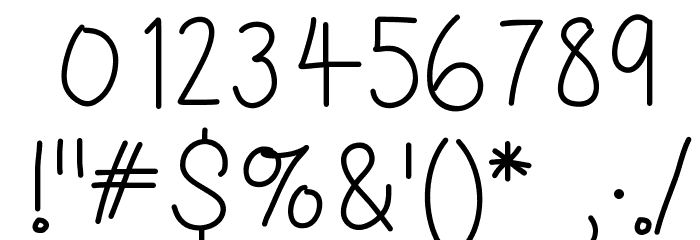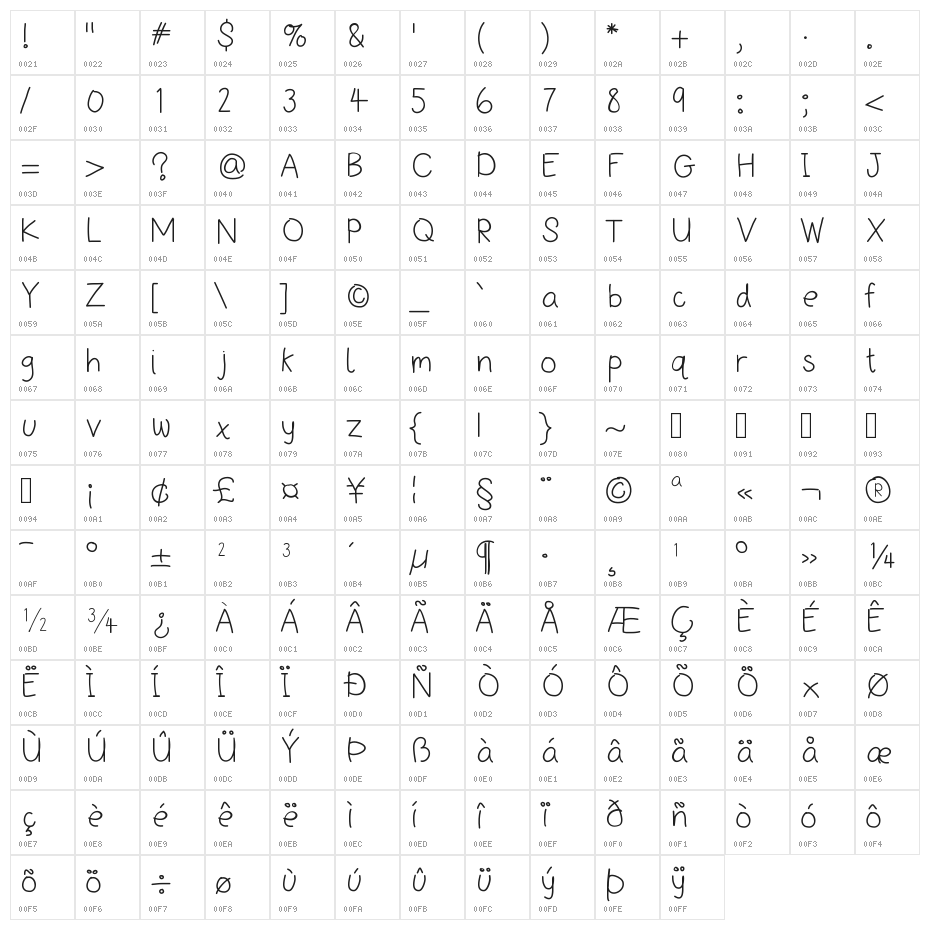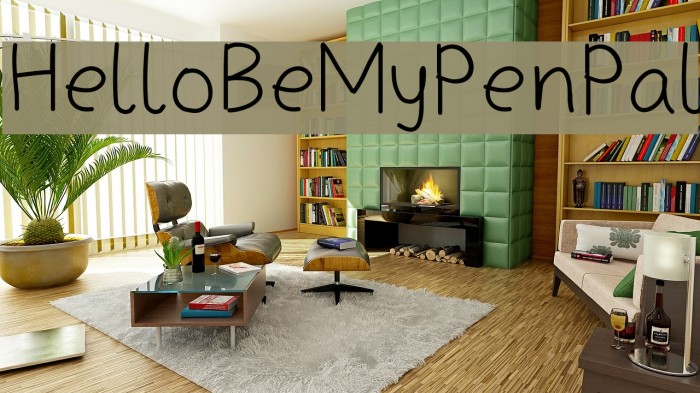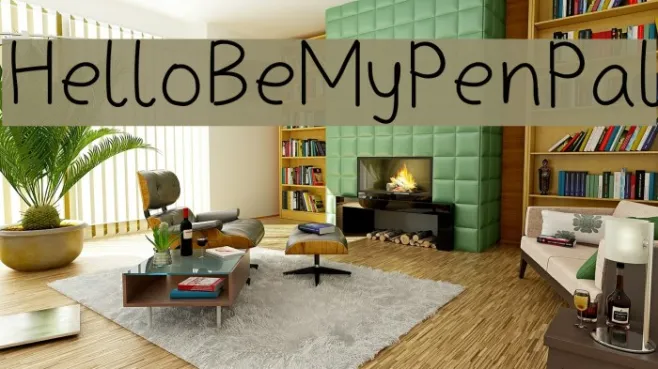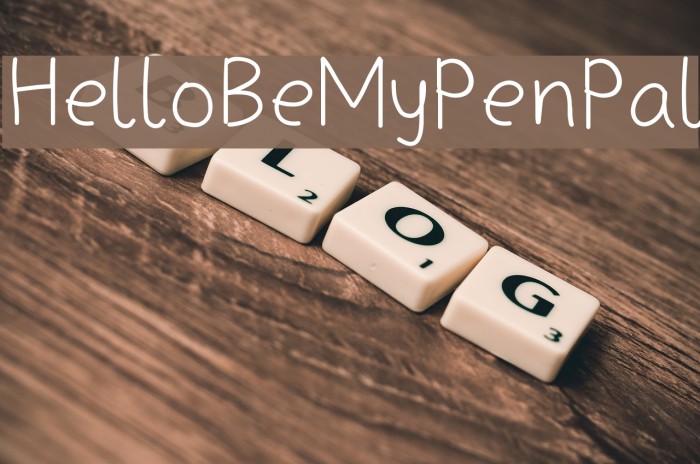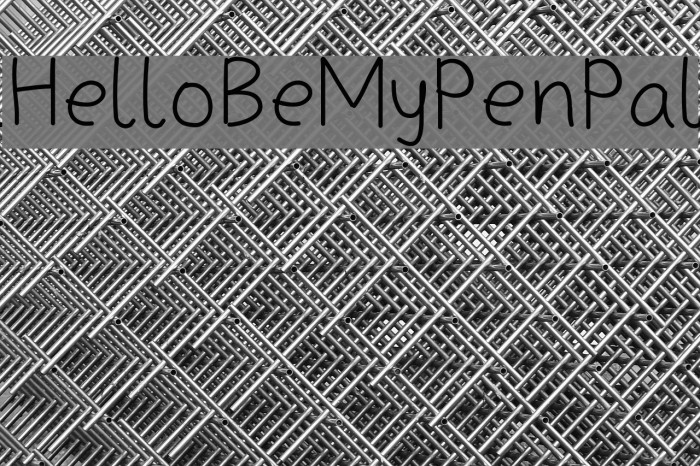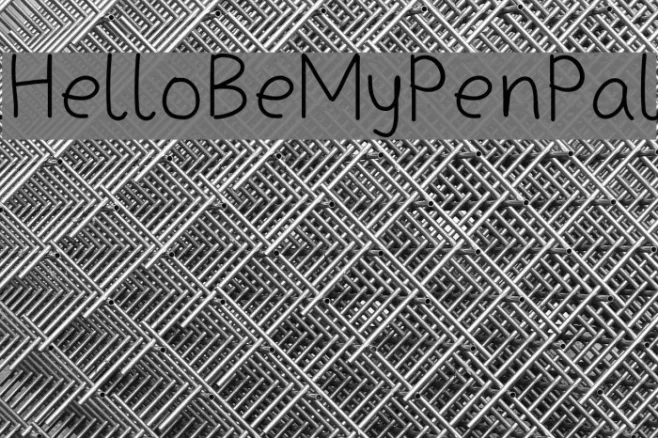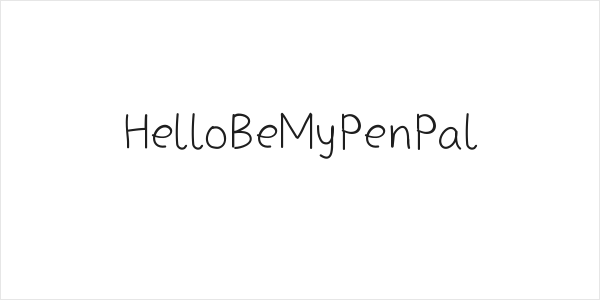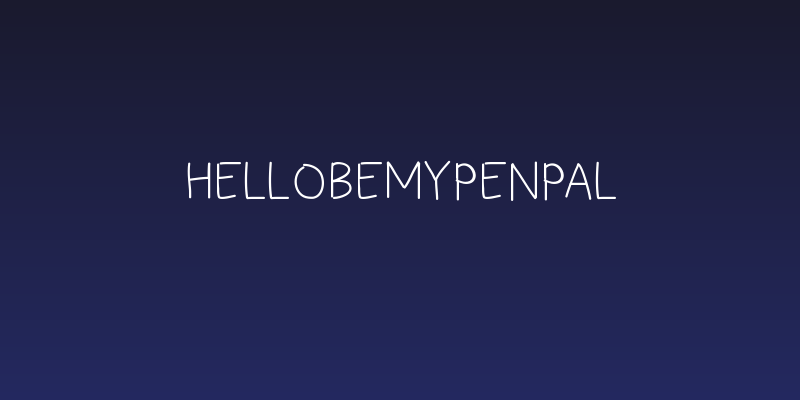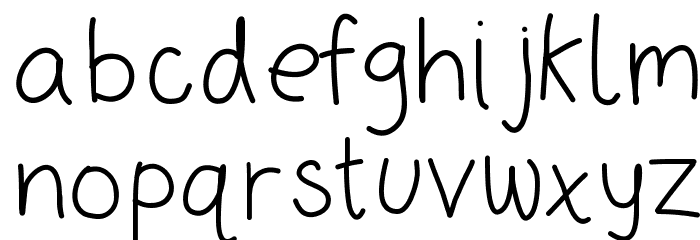
HelloBeMyPenPal Font
HelloBeMyPenPal Description
This font features a playful and casual handwritten style, characterized by its rounded and slightly irregular letterforms. The strokes are consistent in weight, giving it a uniform appearance while maintaining a friendly and approachable feel. The letters are well-spaced, ensuring readability, and the overall design exudes a sense of informality and warmth. The numerals and special characters follow the same design principles, making them blend seamlessly with the alphabet. This font is ideal for projects that require a personal touch or a relaxed vibe.
| Use Case | Headlines, Logos, Informal text |
| Proposed Projects | Greeting cards, children's books, personal blogs, informal invitations, and playful branding. |